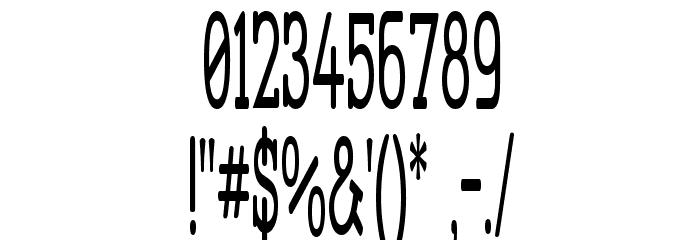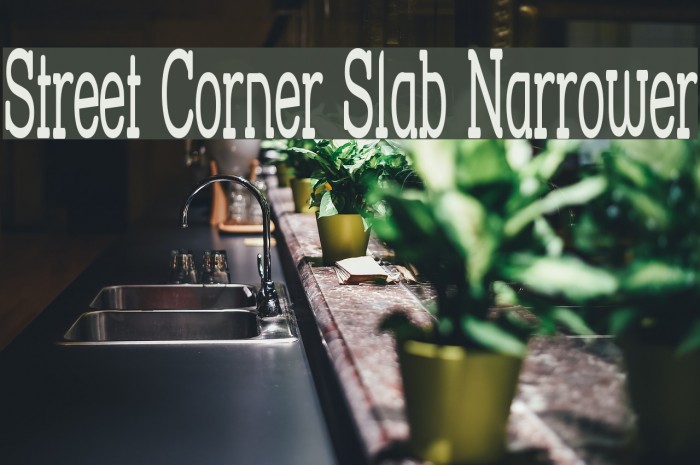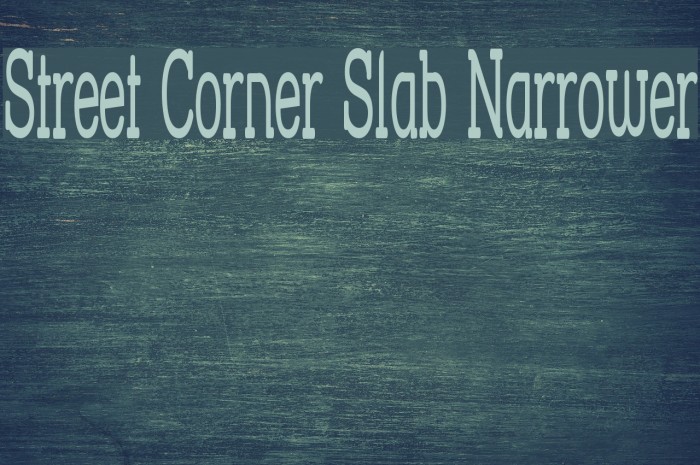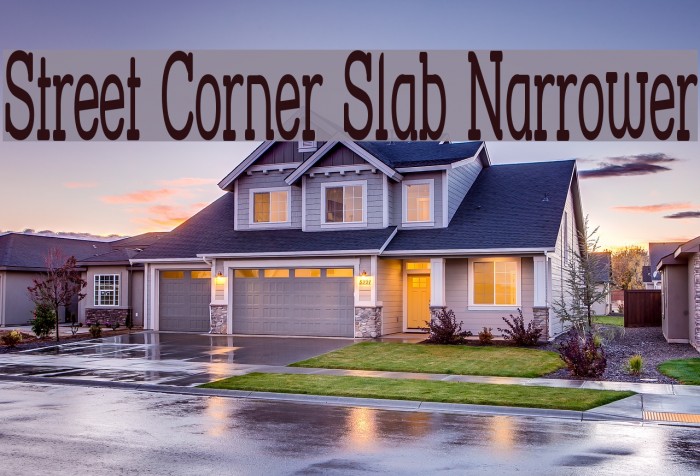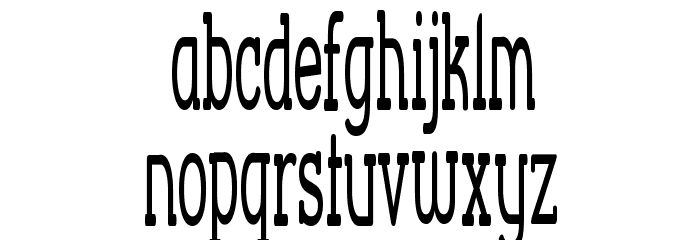
Street Corner Slab Narrower Font
Street Corner Slab Narrower Description
This font features a distinct slab serif style with narrow proportions, giving it a unique and modern appearance. The serifs are prominent and squared, adding a touch of boldness to the overall design. The characters are evenly spaced, maintaining a clean and organized look. The uppercase letters are tall and commanding, while the lowercase letters are slightly more compact, yet still maintain readability. The numerals are consistent with the overall style, providing a cohesive look across all characters. Special characters are well-defined, ensuring versatility in various design applications.
A narrow slab serif font with bold, squared serifs and modern appeal from Serif fonts.
- Proposed Projects: Ideal for branding, posters, headlines, and any project requiring a strong, modern typeface.